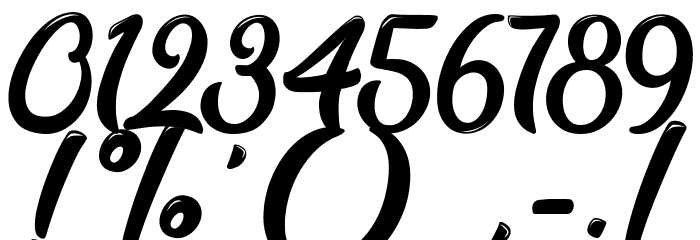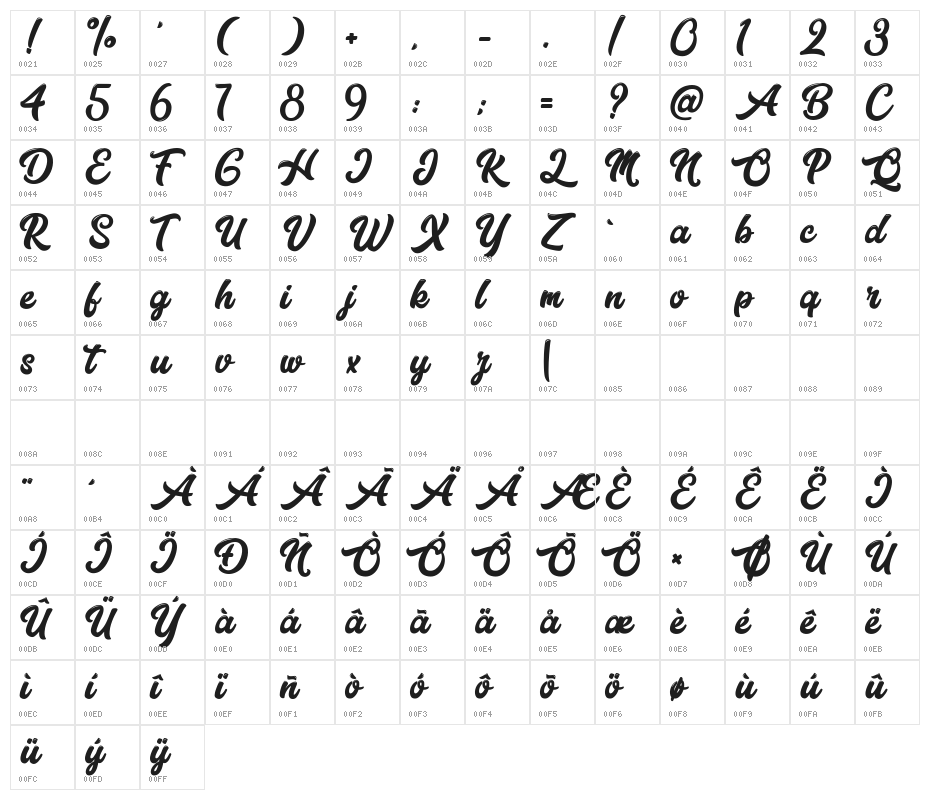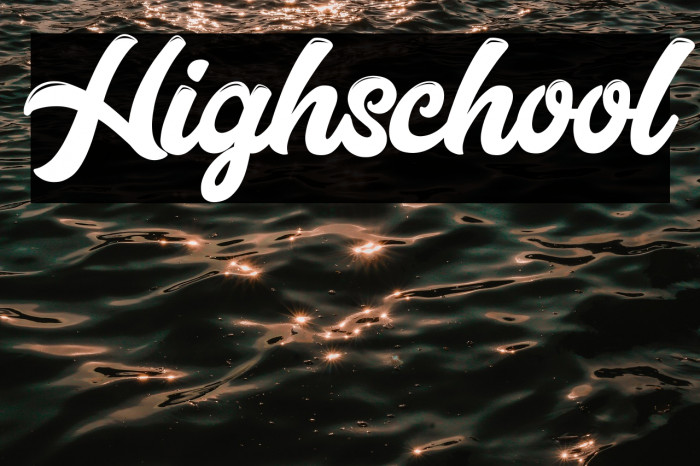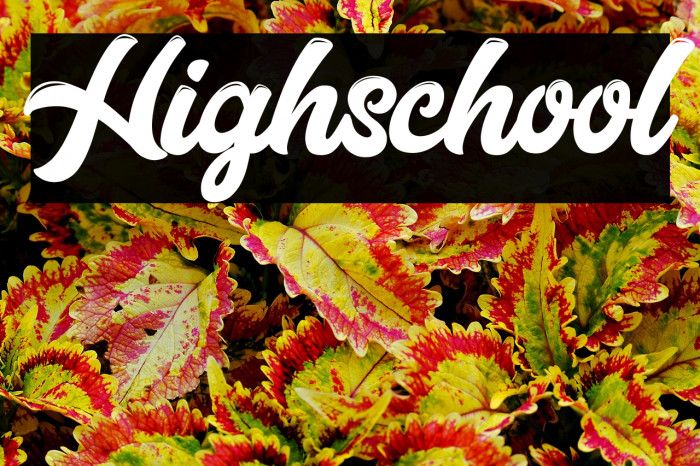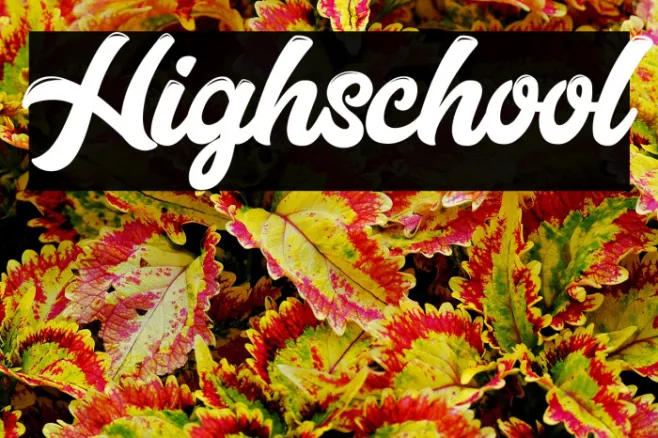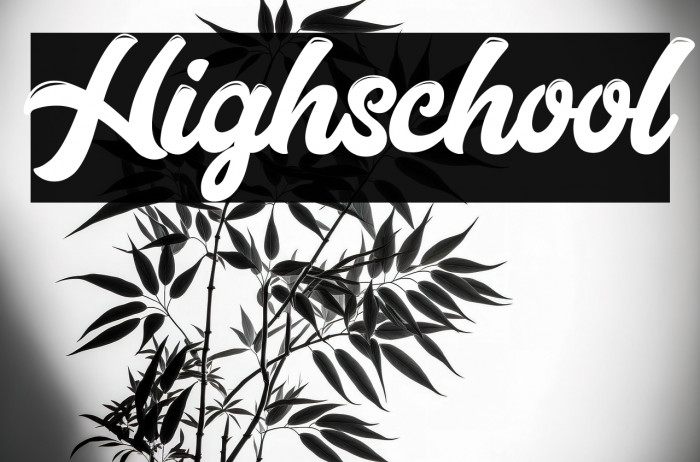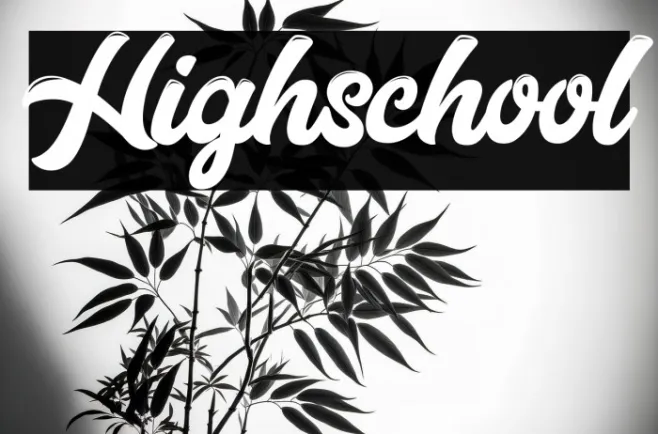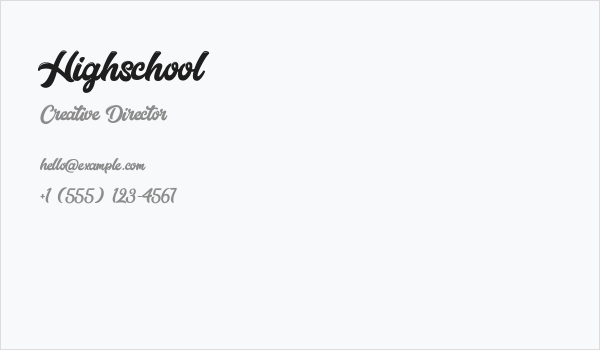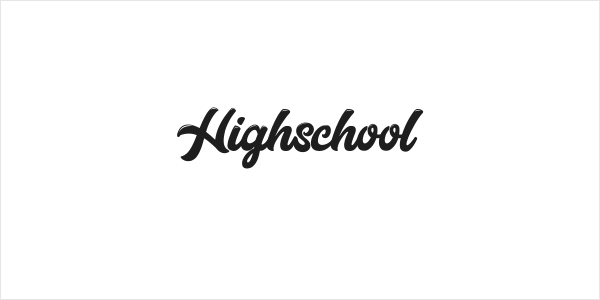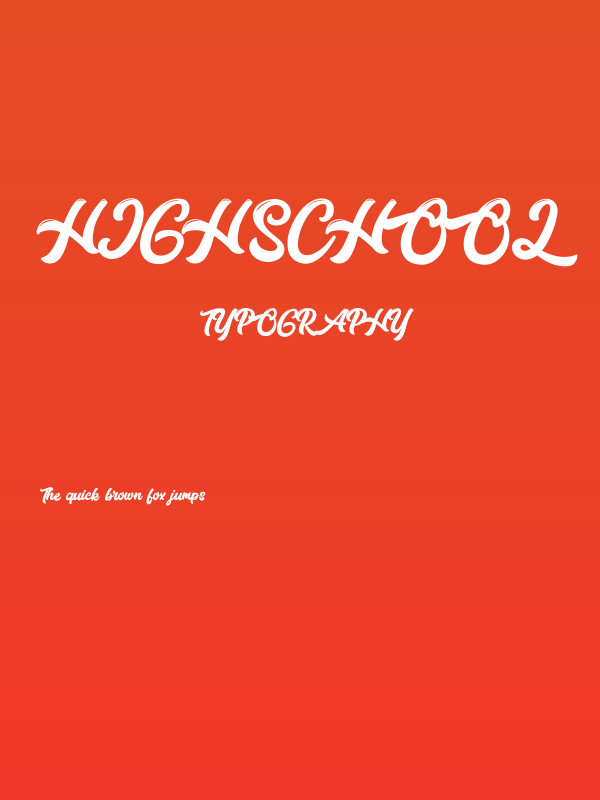
Highschool Font
Highschool Description
This font features a bold and flowing script style, characterized by its elegant and cursive letterforms. The uppercase letters are distinct with sweeping curves and flourishes, while the lowercase letters maintain a consistent flow, creating a harmonious and connected appearance. The numerals and special characters follow the same stylistic approach, ensuring uniformity across all glyphs. The overall design exudes a sense of sophistication and fluidity, making it suitable for projects that require a touch of elegance and personality.